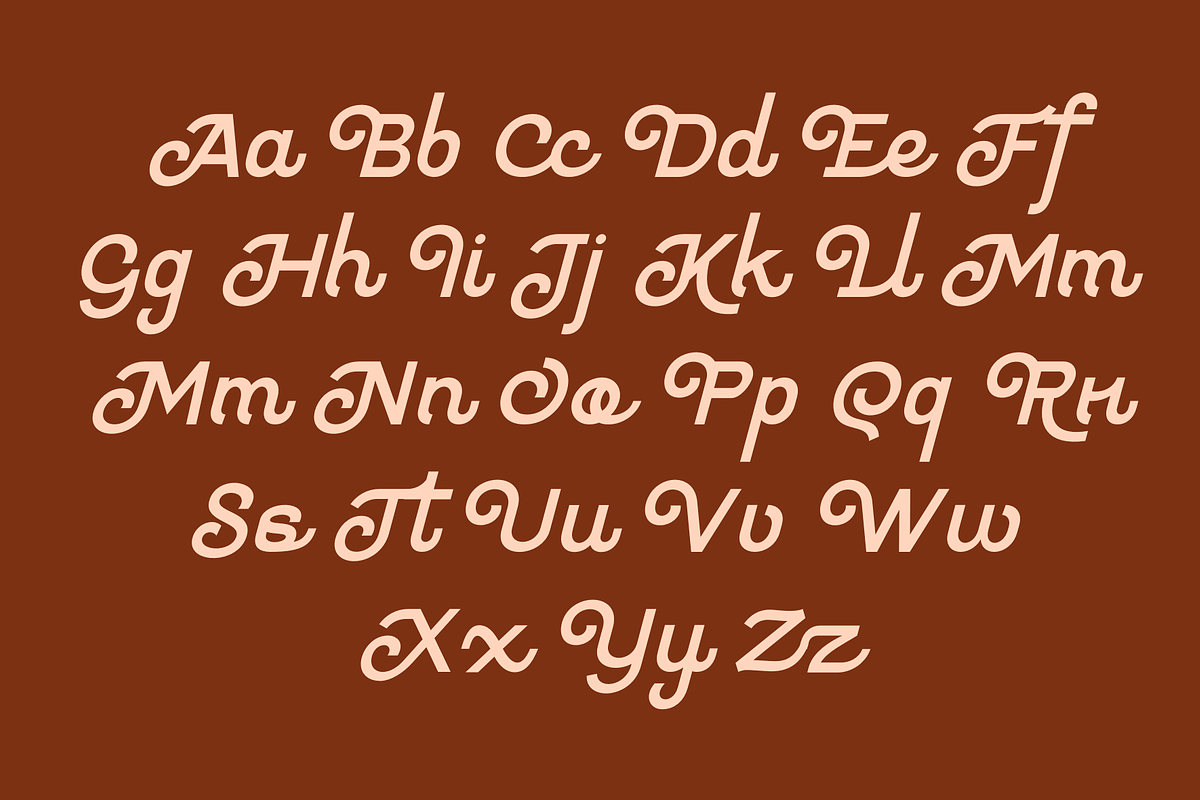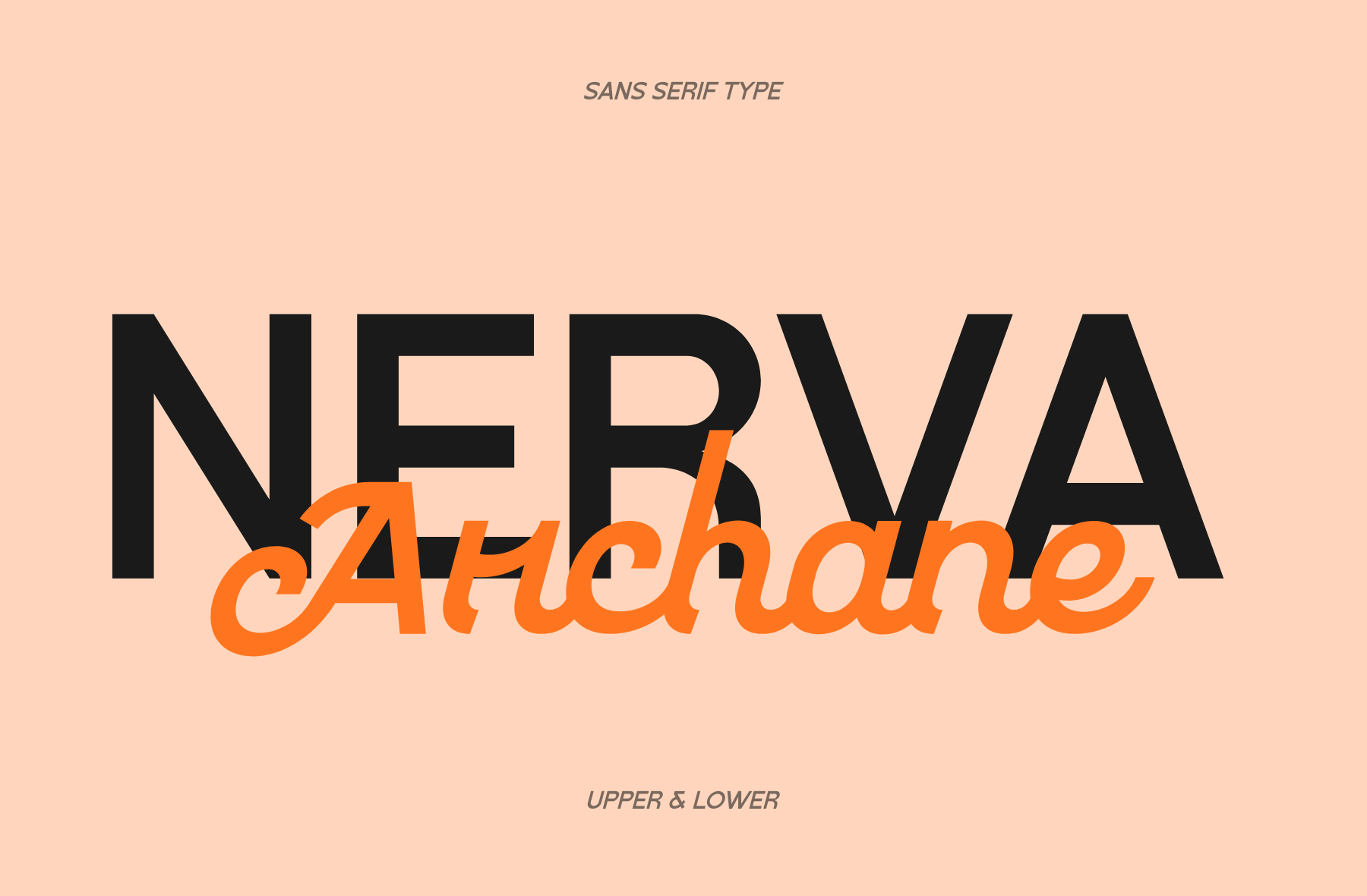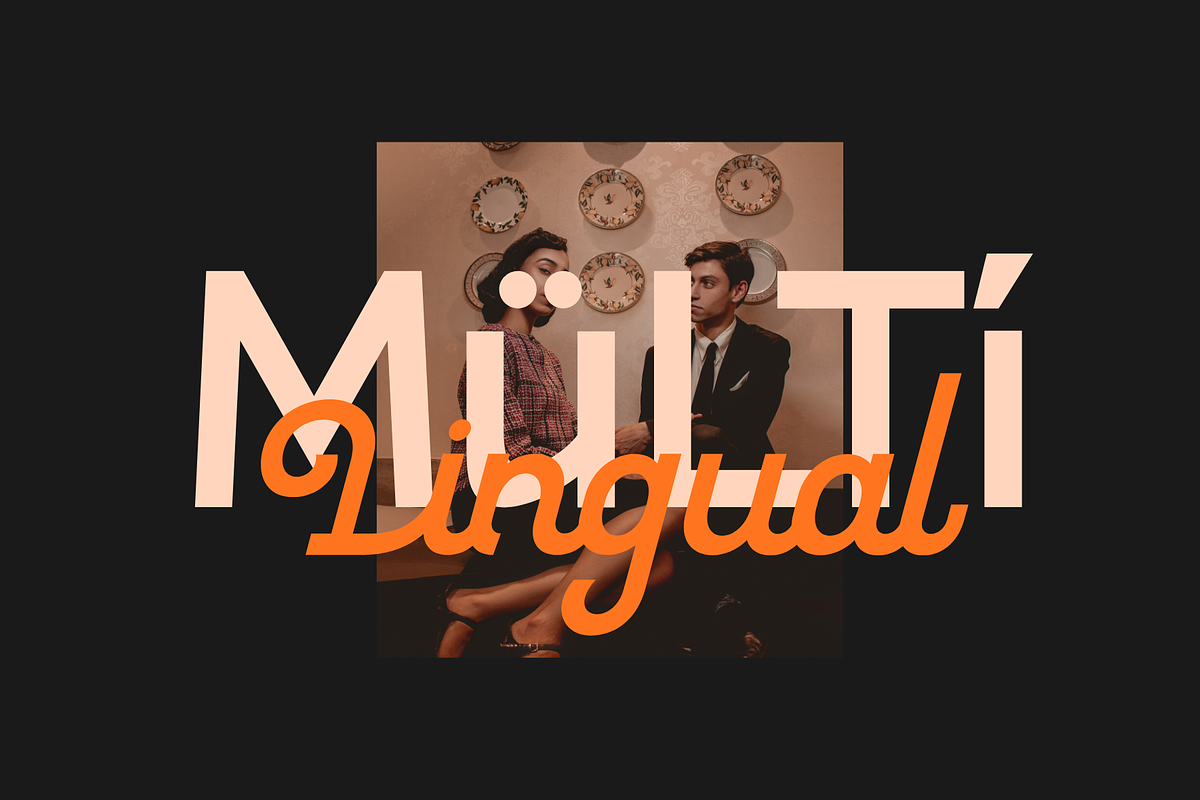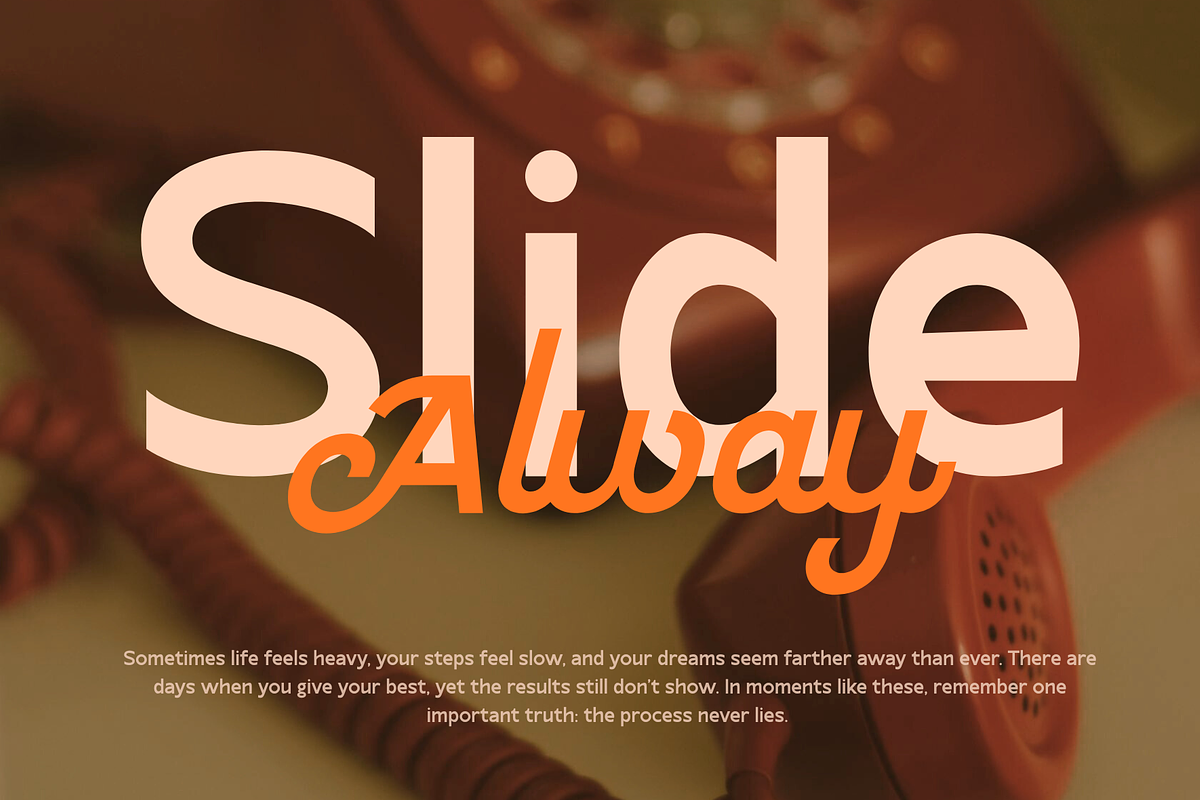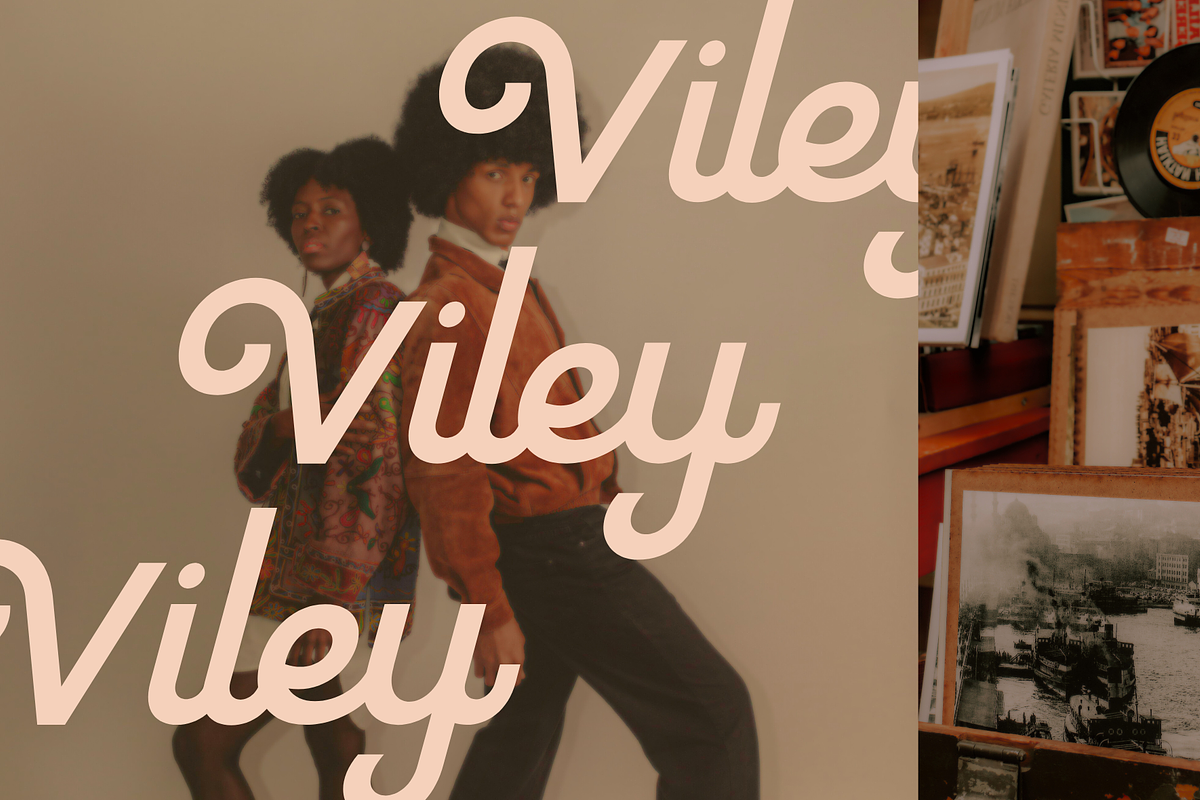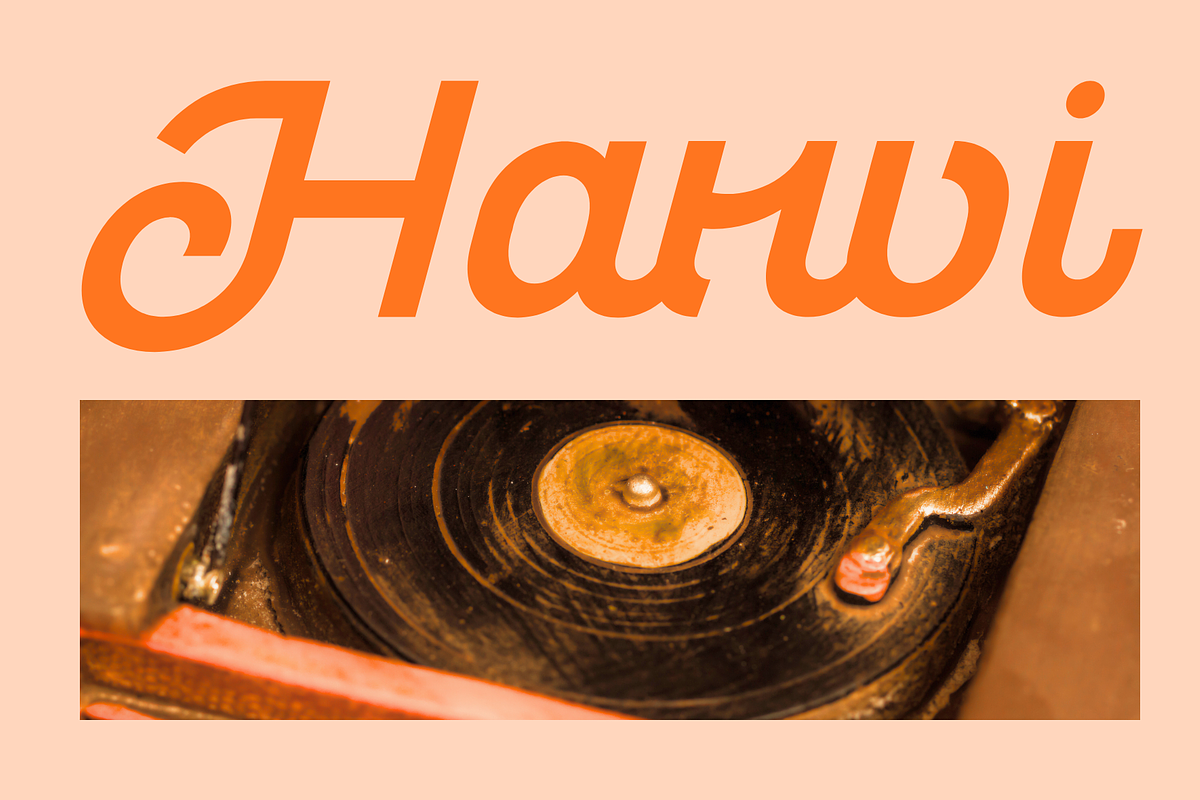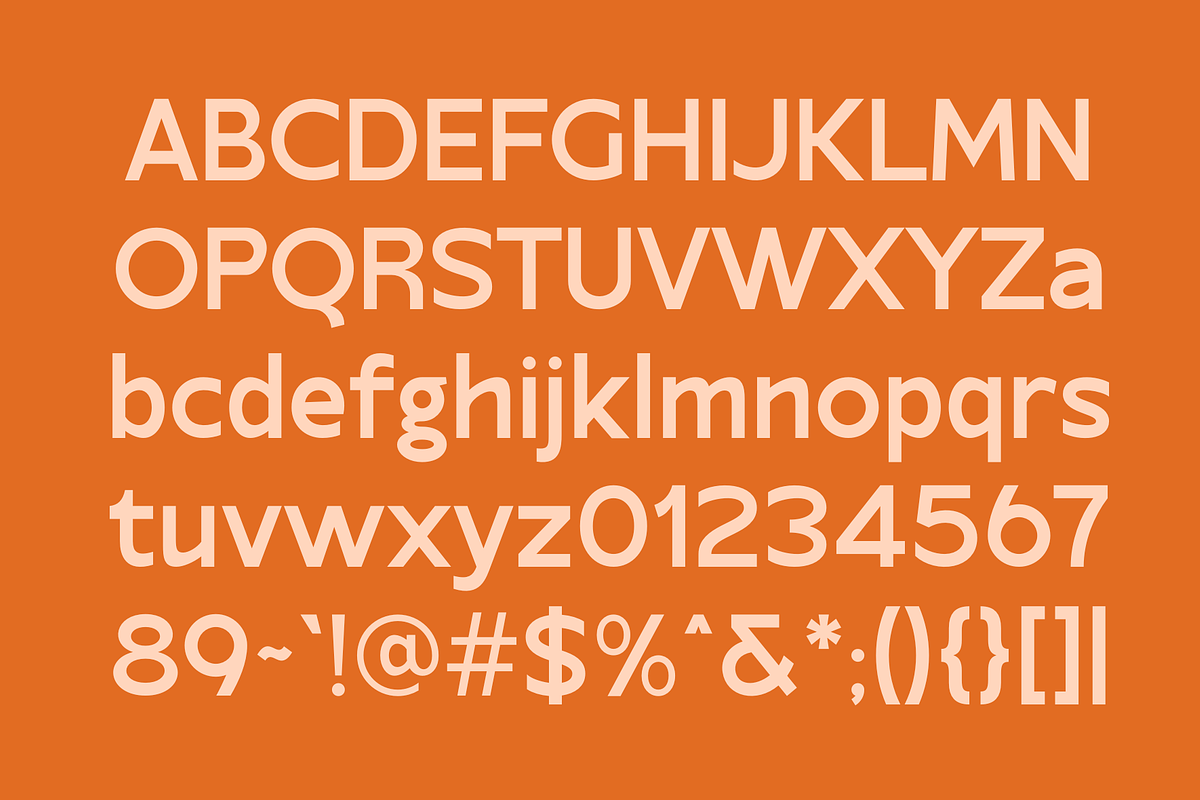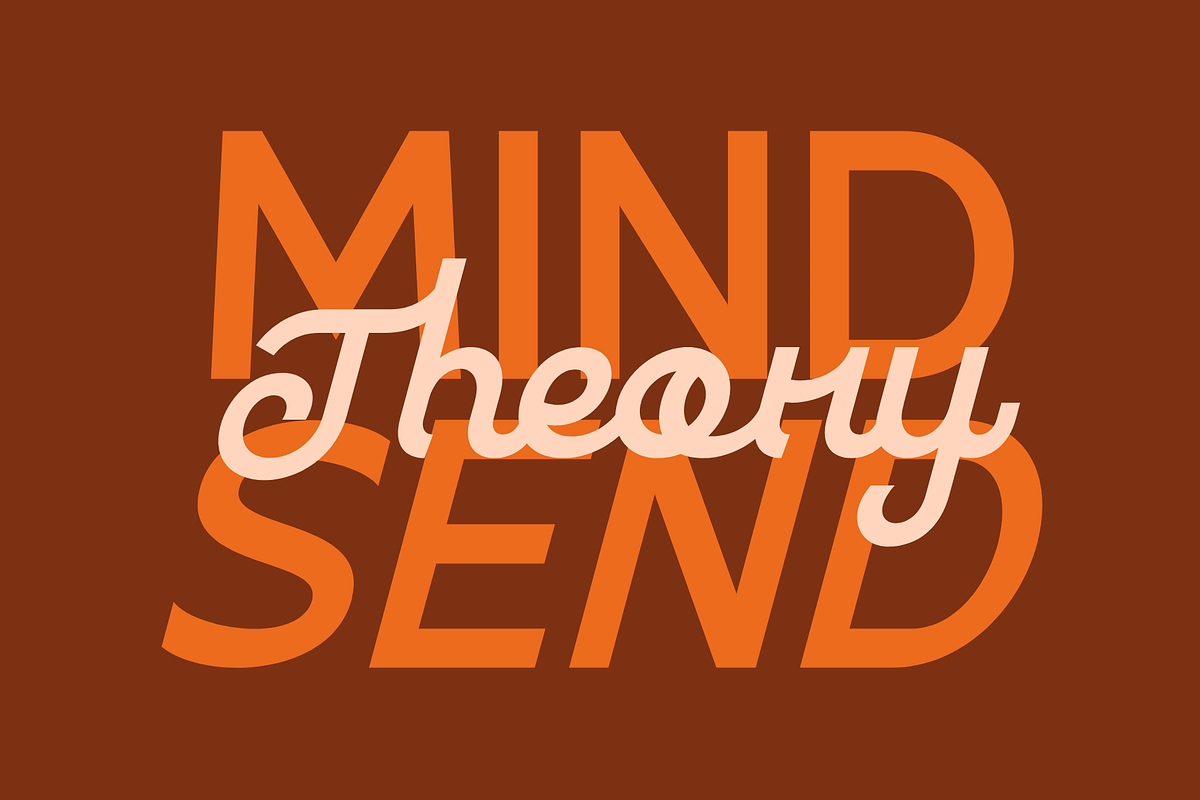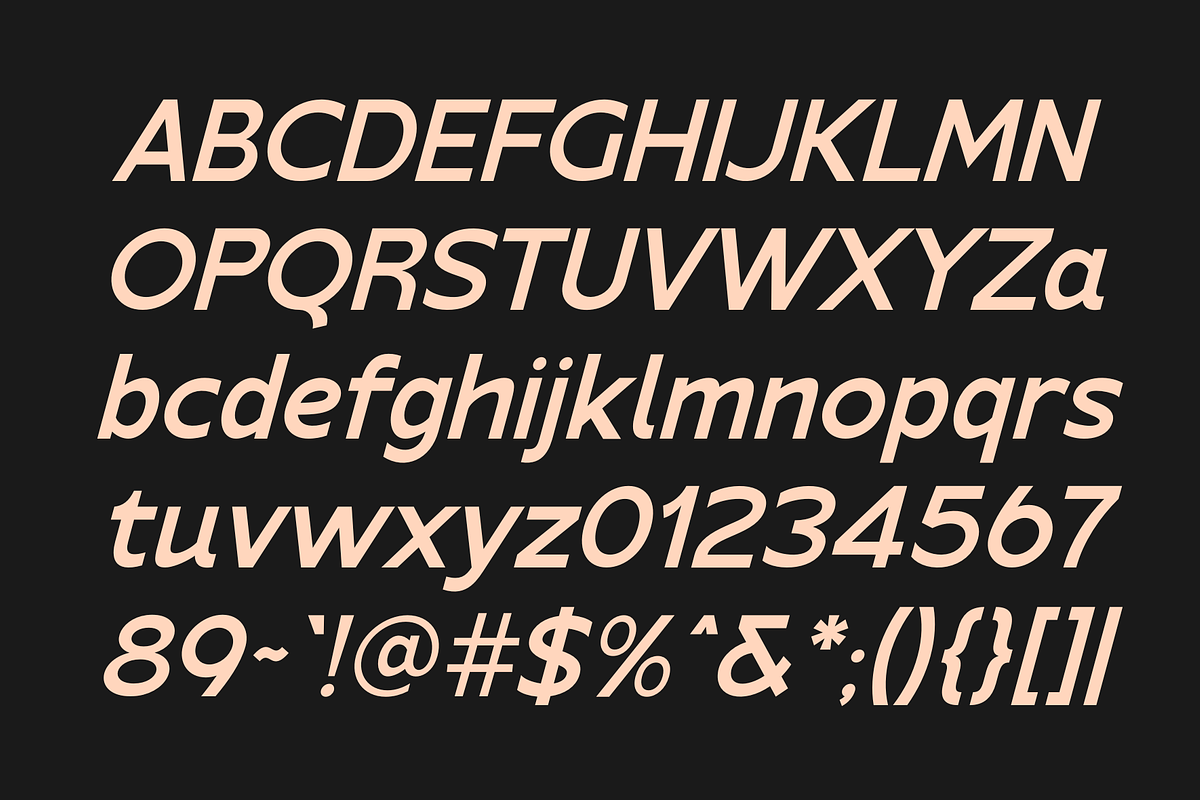
Nerva– Modern Mixed Style Typeface
Nerva is a modern mixed style typeface that combines bold, italic, and script sans serif styles into one versatile font family. Designed to create a strong visual impact, Nerva is ideal for projects that require clarity and character in a single typographic system.
With clean, geometric shapes in the sans serif, dynamic italic shapes, and expressive script accents, Nerva offers flexibility for branding, logos, headlines, posters, packaging, social media, and editorial design. The combination of styles allows designers to easily establish contrast, hierarchy, and personality.
Nerva supports both uppercase and lowercase letters, making it suitable for display typography and short text use. Its modern and contemporary feel makes it ideal for creative, lifestyle, fashion, and business-oriented projects.